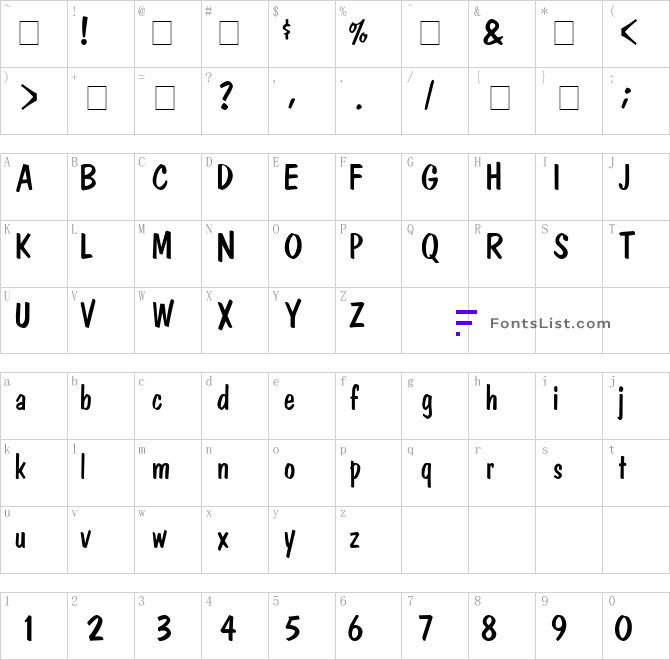
- Font Name:Banga SSi
Banga-SSi.ttf is a very beautiful artistic font, Banga-SSi.ttf is widely used in the design and printing of various books and pictures,Banga-SSi.ttf has a strong visual impact,Banga-SSi.ttf is a commonly used font in newspapers, magazines and books, and is used in posters, e-commerce Poster design, store design, logo design, font design and other fields.Banga-SSi.